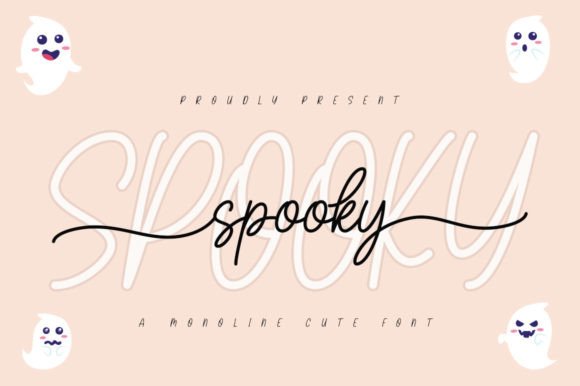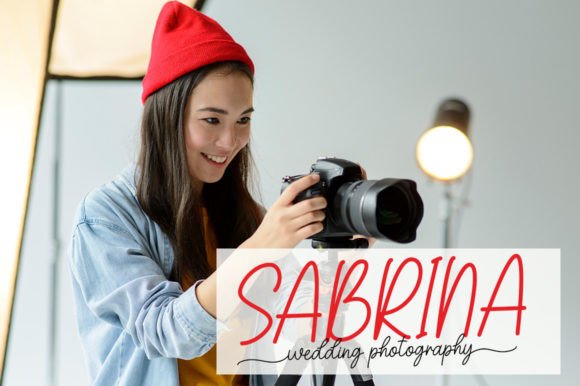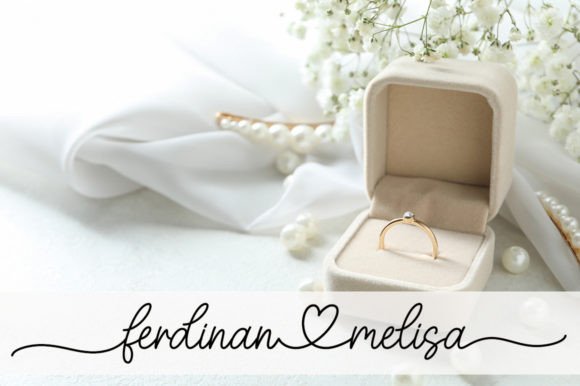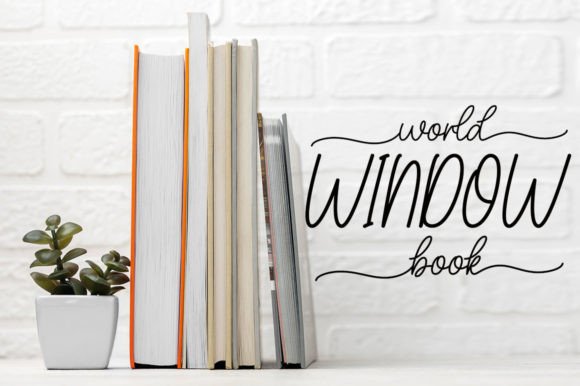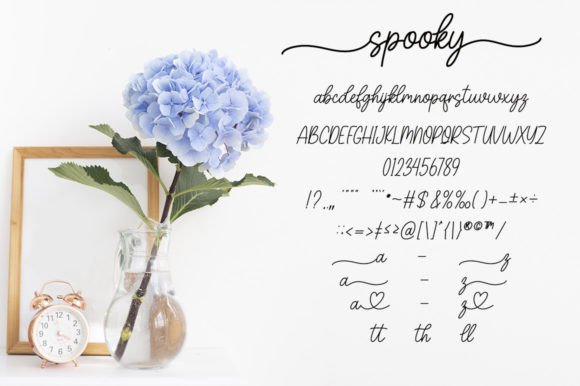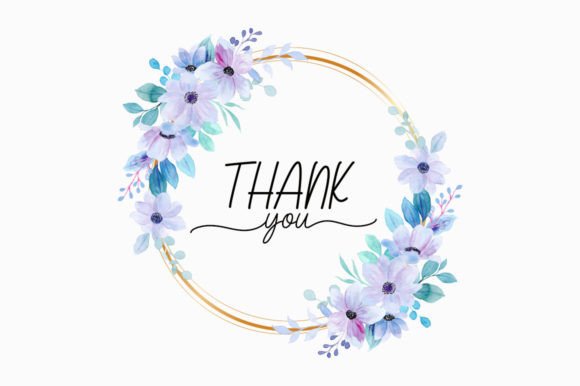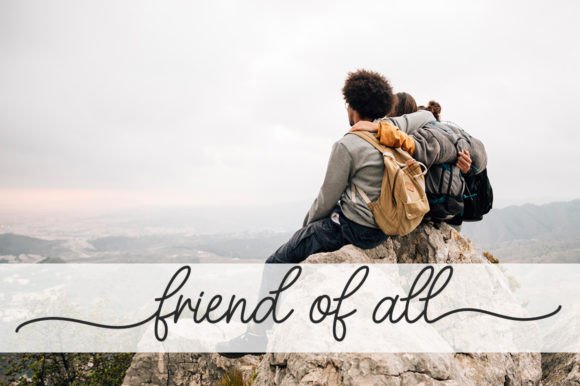
Spooky Font
About Spooky Font
**Spooky: A Beautiful and Delicate Script Font for Elegance**
Spooky is a font that exudes beauty and delicacy, offering a classy, elegant, and modern look suitable for a wide range of design applications. Whether you’re working on logos, branding, invitations, stationery, wedding designs, social media posts, or any other creative project, Spooky adds a touch of sophistication and elegance to your work.
The charm of Spooky lies in its delicate script characters, meticulously crafted to convey a sense of grace and authenticity. Each letter exudes a timeless beauty that elevates your designs to a new level of elegance and refinement.
This font’s versatility ensures it can adapt to various design contexts. It can be used to create stunning logos and branding materials that leave a lasting impression, infuse sophistication into wedding designs, or add a touch of class to your social media posts. Its PUA encoding allows easy access to all the glyphs and swashes, providing you with creative freedom.
In summary, Spooky is more than just a font; it’s a source of beauty and elegance that enhances your design projects. Its delicate script letters make it the perfect choice for infusing sophistication and refinement into your work. With Spooky, your creative projects will shine with a touch of timeless and modern elegance. Choose Spooky, and let your designs captivate with its beautiful and delicate charm.